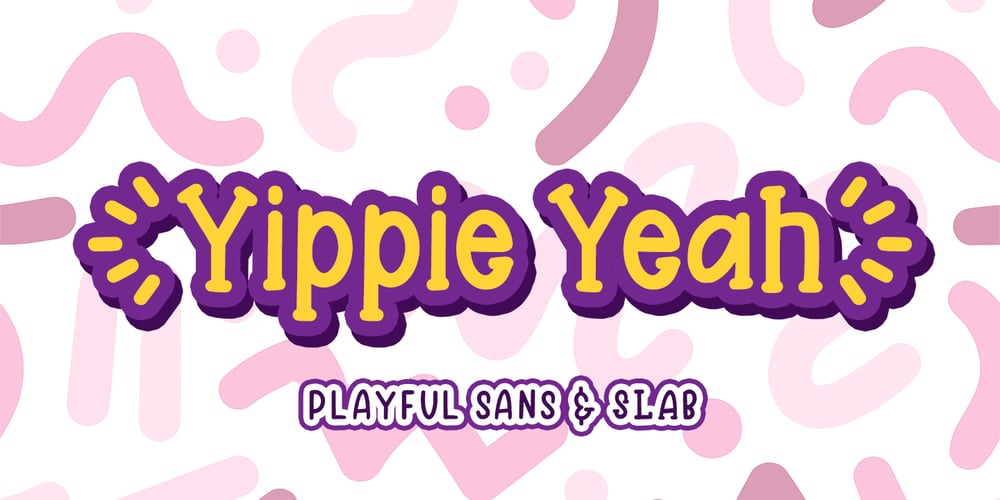
Yippie Yeah Font Family was designed by Abdul Malik Wisnu and published by Almarkha Type. Yippie Yeah contains 2 styles and family package options. Yippie Yeah Sans & Slab is a Cute & Playful Font full of charm . It will take any DIY-project to the next level!Yippie Yeah Sans & Slab is perfect for Crafts, Poster, product packaging, product designs, label, branding projects, logo, wedding designs, social media posts, advertisements, watermark, invitation, stationery and any projects